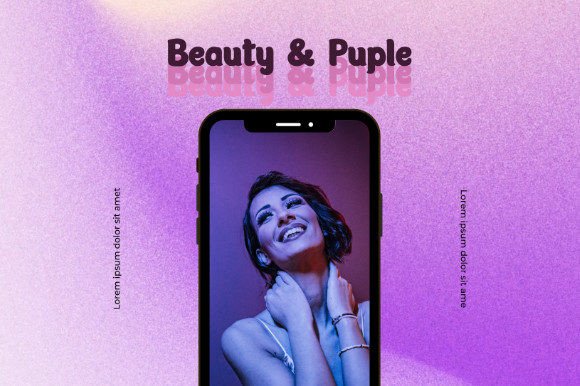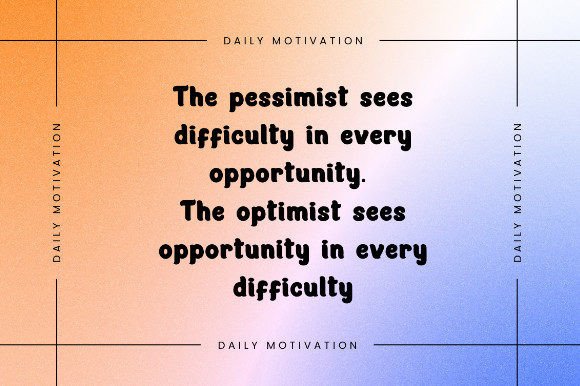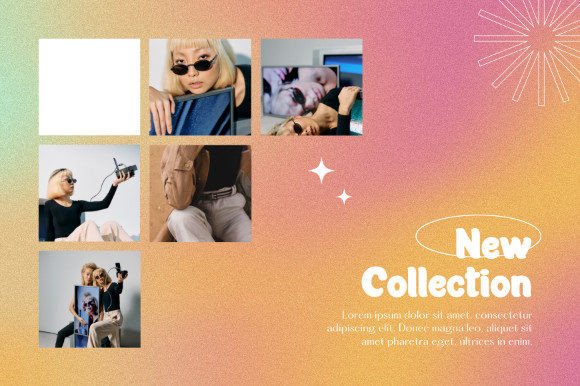
Introduction to Cotane Beach Font
Cotane Beach is a fun and friendly display font.
Whatever the topic, this font will be a wonderful asset to your font library, as it has the potential to enhance any creation .
Cotane Beach Font offers exceptional quality and versatility, making it a valuable addition to your design toolkit. Whether you’re creating for personal projects or commercial use, Cotane Beach Font delivers professional results.